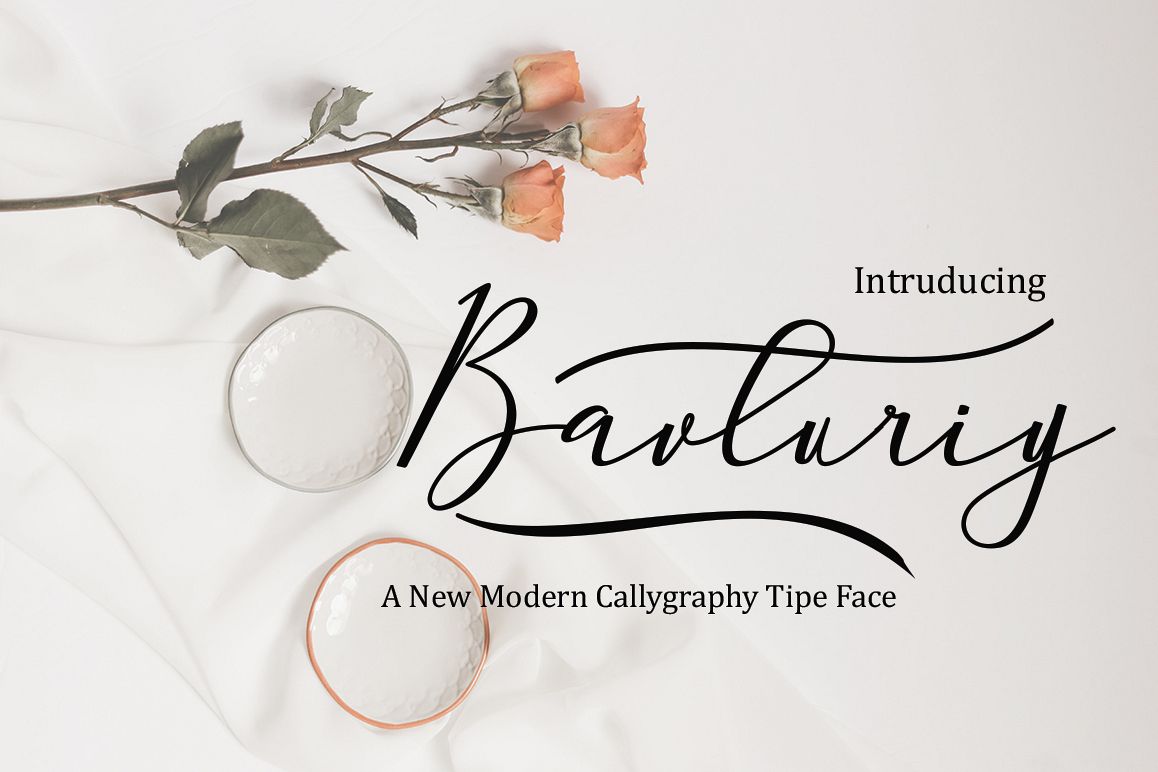
Bavturiy
Bavturiy-Regular
Bavturiy is a font bold, so, brush script that is beautiful and unique, it is a model of modern calligraphy typefaces, in combination with a calligraphy writing style.
The Features of this fonts is;
* Contextual Alternates
* Standart ligatures
* Discretionary ligatures
* Stylistic Alternates
* Stylistic sets
Languages supported: Breton, Catalan, Czech, Danish, Estonian,French, German, Hungarian, Icelandic, Italian, Romanian, Scottish Gaelic, Slovak, Latvian, Lithuanian, Norwegian, English, Finnish, Polish, Portuguese, Slovenian, Spanish, Swedish, Turkish, Welsh. Basically, all european languages that are based on latin alphabet